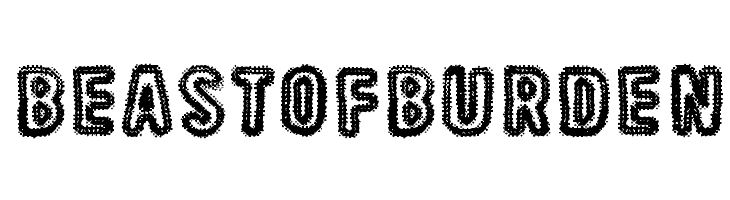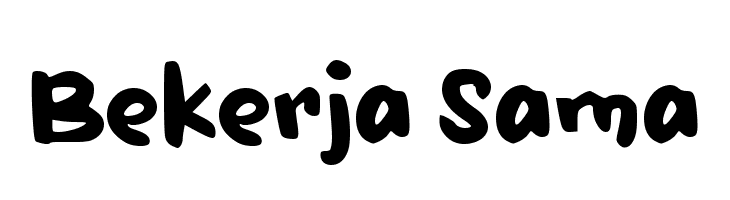
A tech-inspired font with characters inside laptop icons, offering a bold and modern look.
A bold, geometric font with playful, chunky characters.
A flowing, cursive script font with elegant, connected strokes.
A bold, 3D italic font with outlined characters and a modern, dynamic style.
A playful, tall handwritten font with a casual and organic feel.
A futuristic, geometric font with bold, angular outlines and a three-dimensional look.
A bold, decorative font with a distressed, vintage texture.
A light, condensed, oblique monospaced font ideal for technical use.
设计师偏爱 domik, Nagurip Regular, LapTop, Dino Moose DEMO and Keumala,因为其造型干净、适用范围广—— 从品牌识别到落地页、海报都能胜任。